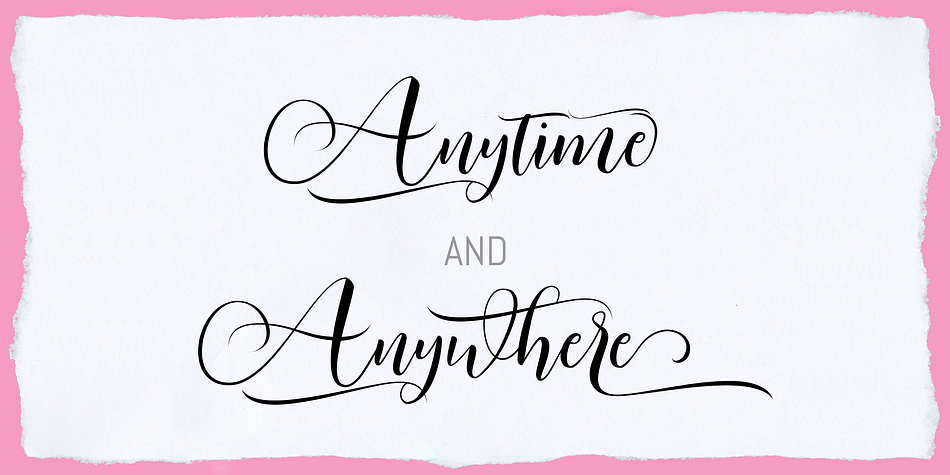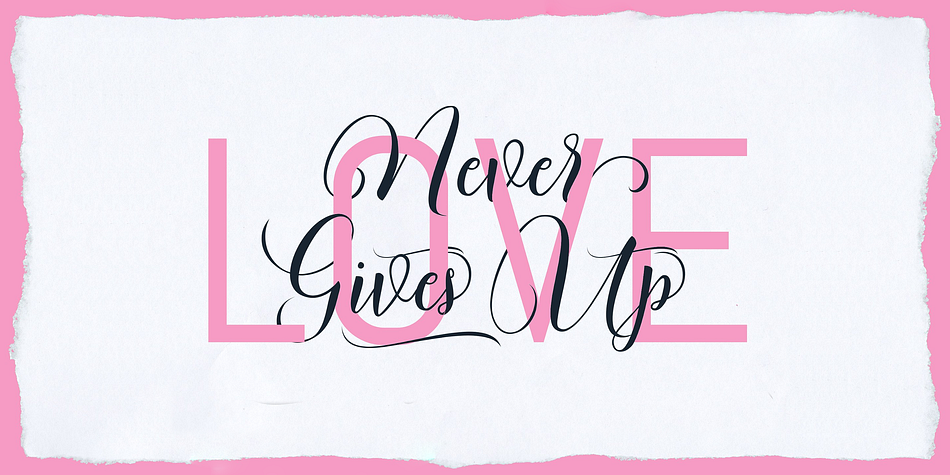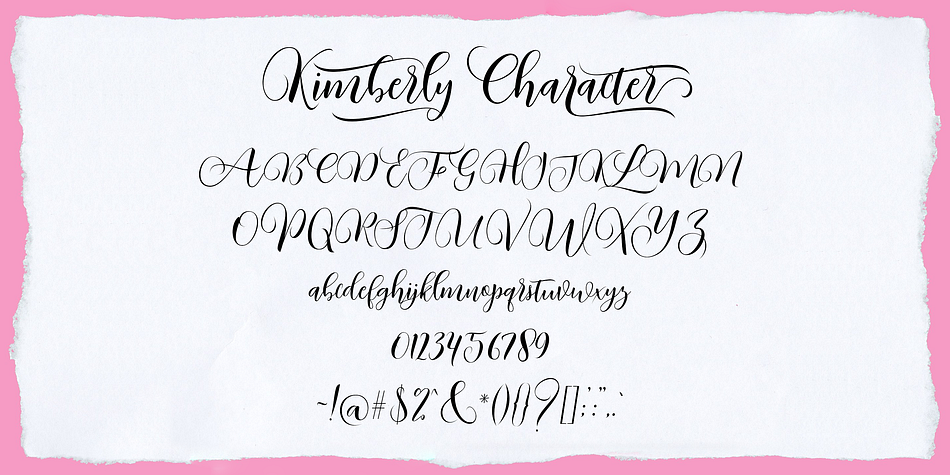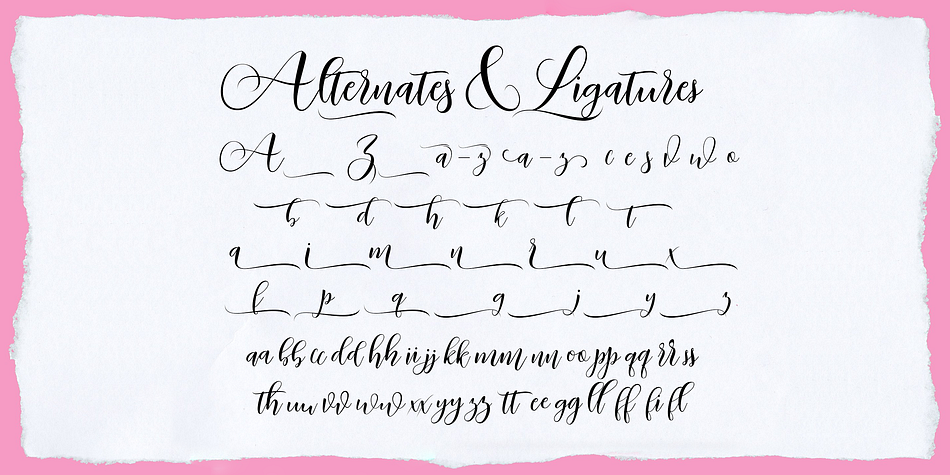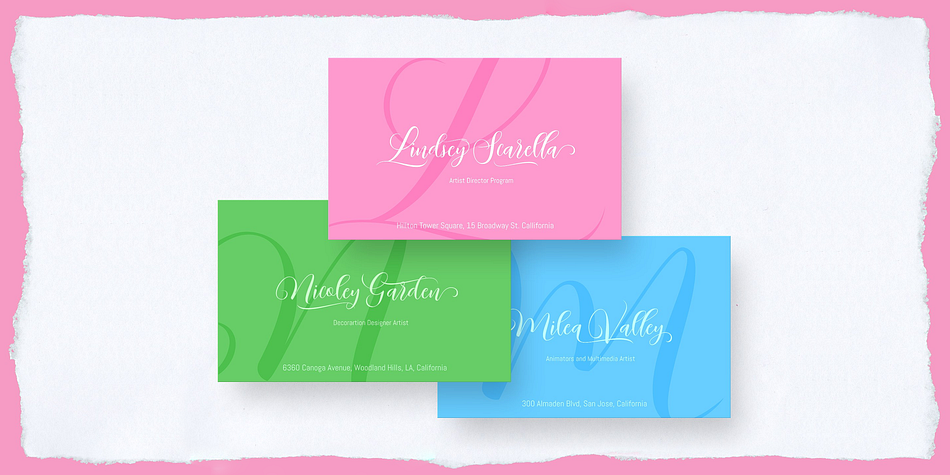
Designed by Rachma BT, Kimberly Script is a modern calligraphy and script font published by Bonjour Type.
Kimberly Script is a stylish handwritten calligraphy font, combines from copper slabs to contemporary fonts with dancing baselines, classic and elegant touches. Can be used for various purposes.such as headings, signature, logos, wedding invitation, t-shirt, letterhead, signage, lable, news, posters, badges etc.